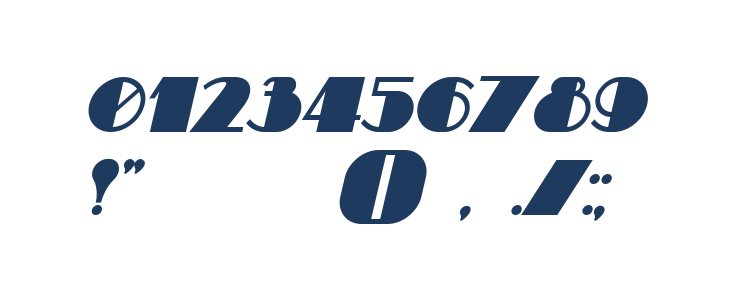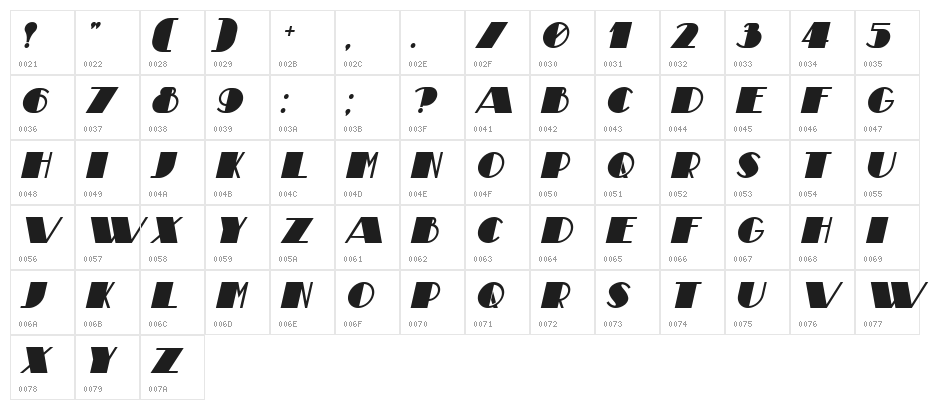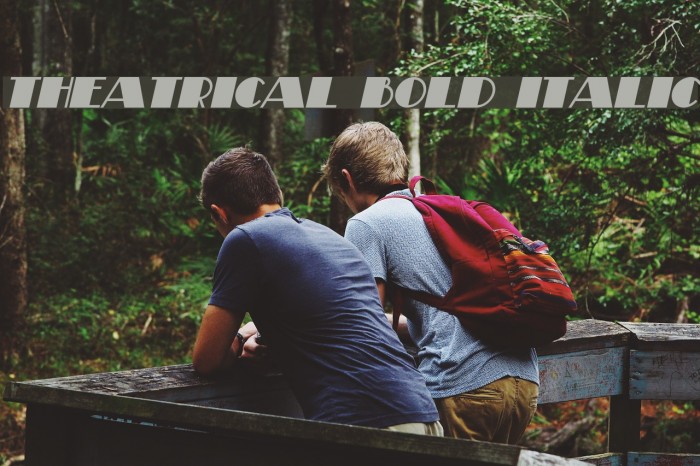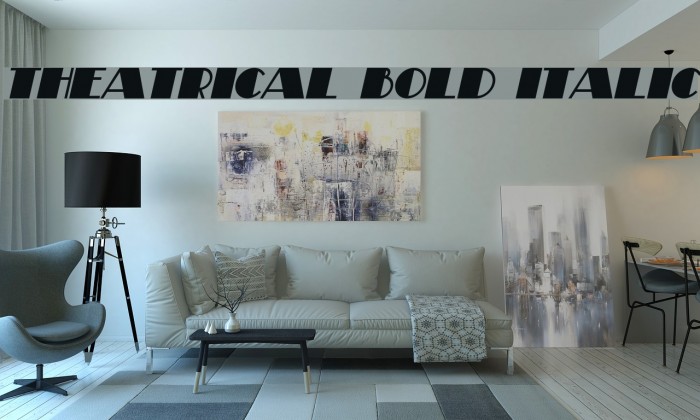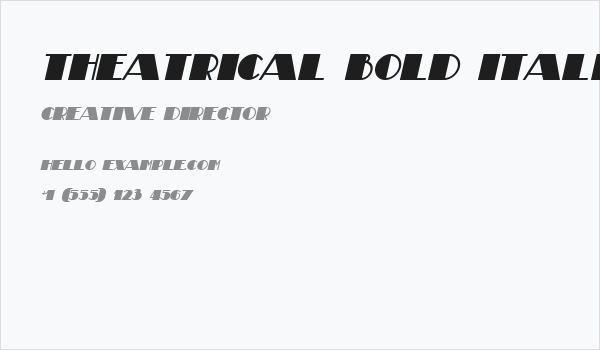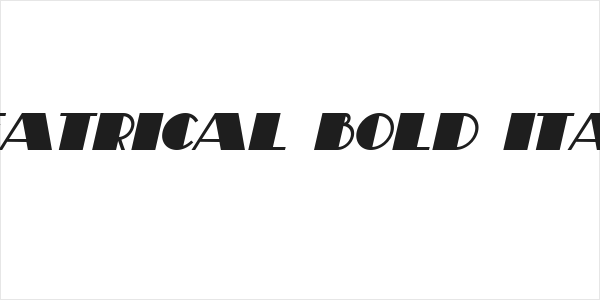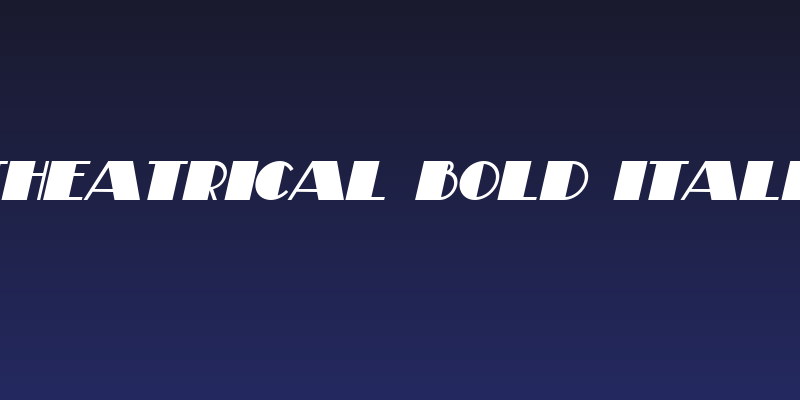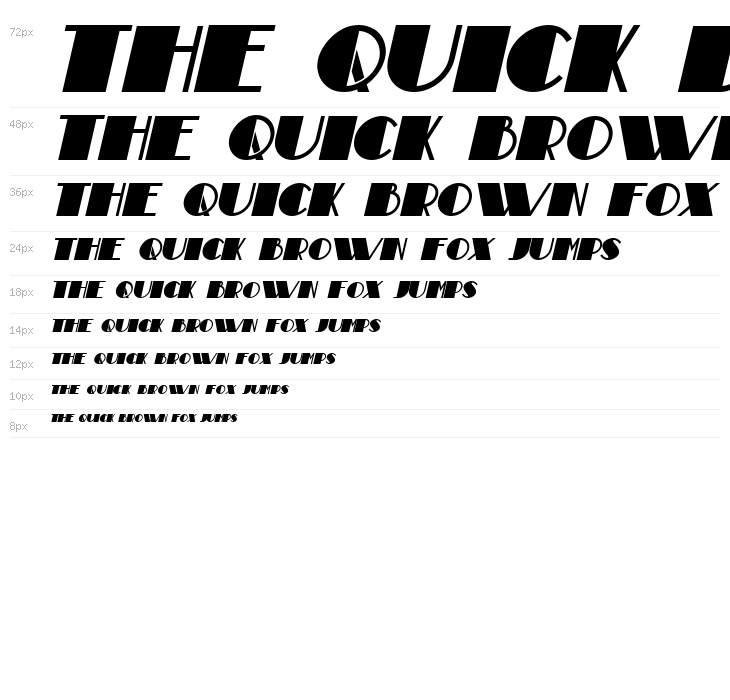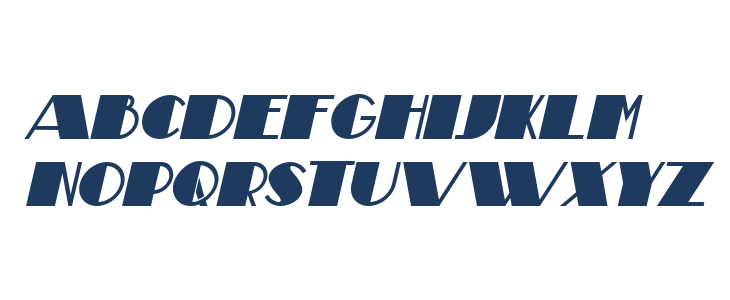
Theatrical Bold Italic Font
Theatrical Bold Italic Description
This font features a bold and italicized style with a dramatic flair, characterized by its thick strokes and sharp angles. The letters are designed with a forward slant, adding a sense of motion and energy. The uppercase and lowercase letters maintain a consistent weight, creating a cohesive look. The numbers and special characters follow the same bold and italicized design, ensuring uniformity across all glyphs. The font's high contrast in stroke thickness enhances its readability and visual impact, making it suitable for attention-grabbing headlines and titles.
| Overall Style | Dramatic, Modern |
| Proposed Projects | Ideal for theatrical posters, movie titles, branding materials, and any project requiring a bold statement. |